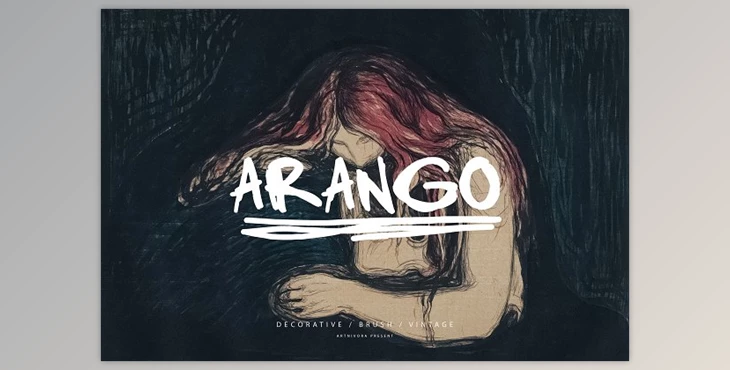
Arango – Decorative Font: We present Arango Arango, a simple and elegant font that is both elegant and simple. This is the perfect font for those requiring a typeface for logos, magazines, social media, and others.
Some great features of Arango – Decorative Font:
- Uppercase
- Punctuation
- Numerals